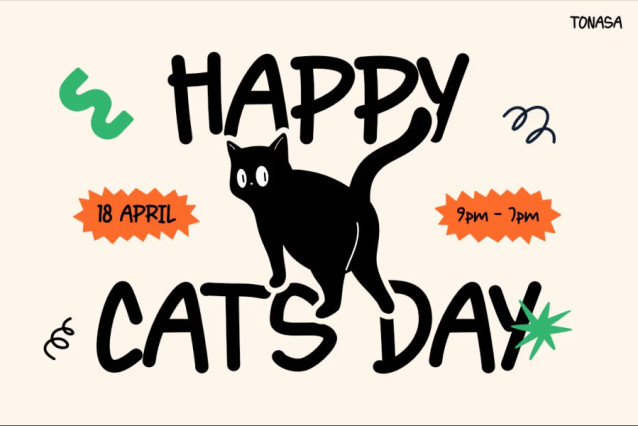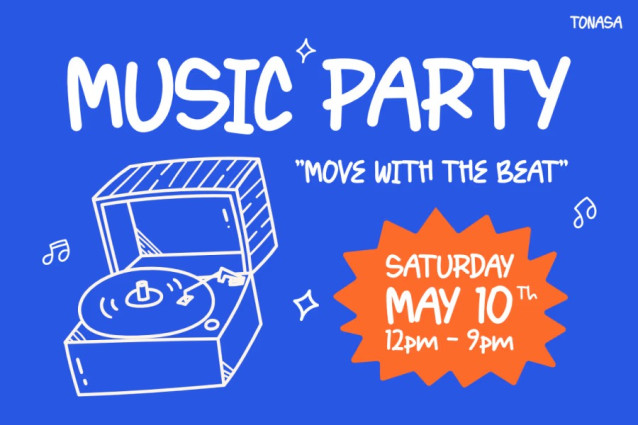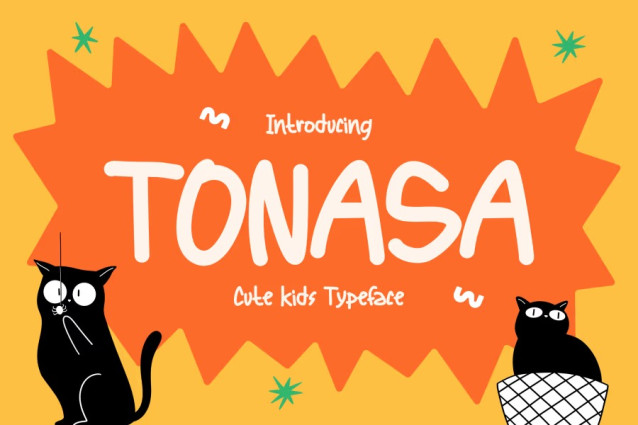
Tonasa Font
Tonasa Font is a playful and bold display font created to bring joy and character into creative designs. This font features hand-drawn letterforms with a friendly and expressive style. Each character feels lively and warm, making text look fun and approachable. The rounded shapes and uneven strokes give it a natural, artistic feel. Because of this, the font feels authentic and full of personality. Kids Font Tonasa is unique because it balances cheerful aesthetics with clear readability. The letters stay easy to read, even in colorful and busy layouts. As a result, messages remain strong, clear, and engaging. This combination makes the font visually attractive and highly functional for many creative needs.
Tonasa is a kids-style display font designed for playful and imaginative projects. It includes uppercase and lowercase letters, numbers, and basic punctuation. This allows designers to create complete and flexible layouts with ease. The handcrafted look adds warmth and emotional value to every design. At the same time, the bold structure ensures excellent visibility. The font works well with illustrations, doodles, and bright color palettes. It performs consistently across both print and digital formats. For example, it looks great on posters, invitations, greeting cards, and packaging. It also works well for social media graphics and digital banners. The spacing is clean and balanced, which helps maintain readability at different sizes. Overall, Tonasa delivers strong visual impact while remaining easy to use.
Kids Font Tonasa is ideal for designers who work with fun and child-friendly themes. It suits illustrators, teachers, and content creators. The font is perfect for children’s books, school materials, and learning worksheets. It also fits birthday invitations, party posters, and kids event flyers. Small business owners can use it for toy packaging and kids merchandise. In addition, it works well for social media posts and YouTube thumbnails. Brands targeting children and families will benefit from its friendly tone.
In conclusion, Kids Font Tonasa is a smart choice for joyful and expressive designs. It adds personality, clarity, and charm. Choose this font to make your projects brighter, friendlier, and more memorable.